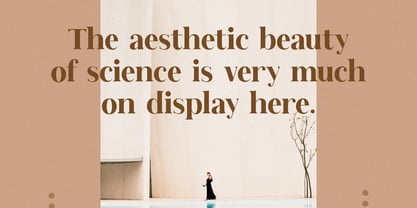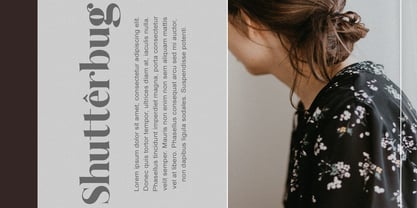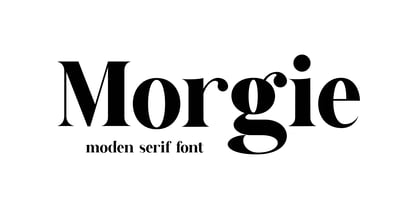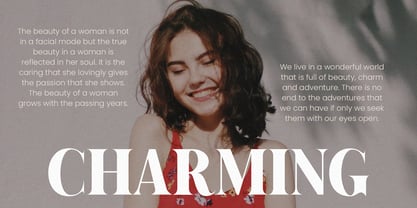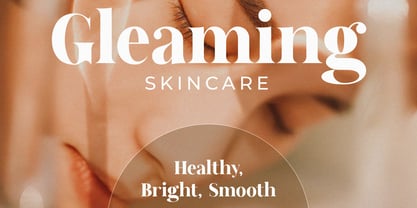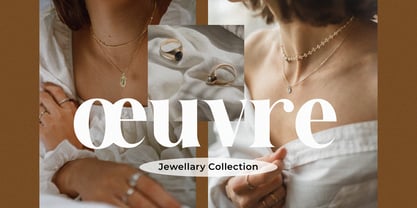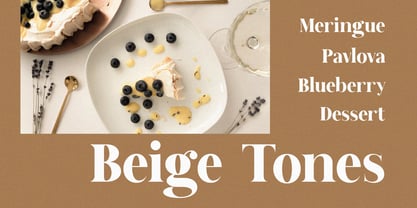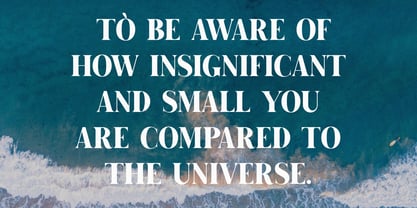
Morgie
Morgie – Modern Elegant Serif Font
Morgie is a strong and modern serif font with a touch of classic elegance. Featuring thick strokes and sharp, pointed ends, this typeface offers a powerful yet graceful look. Its semi-classic form makes it perfect for both modern and vintage-themed designs.
Morgie is available in regular and italic styles, giving you flexibility in both text and display use. It works well in everything from editorial layouts and bold headlines to luxury branding and high-impact logos. Each letter is designed to be clear, stylish, and professional—ensuring your work stands out every time.
Because of its elegant structure, Morgie adds depth and character to any layout. It’s ideal for designers working on magazines, books, websites, song covers, and billboards. You can also use it for fashion branding, boutique logos, or product packaging where a classic yet trendy style is needed.
Additionally, its clean shape and sharp ends make it suitable for both short titles and longer text content. Whether you’re designing for digital platforms or print media, Morgie offers great readability and impact.
Best For:
• 📚 Editorial design: magazines, articles, books
• 🎬 Creative media: movie titles, song covers
• 🛍️ Branding: logos, product labels, fashion packaging
• 💻 Web content, layouts, and digital ads
• 🎨 Canva templates, invitations, and social graphics
In short, Morgie is a reliable serif font that gives your work a bold, modern voice with classic charm. Perfect for professionals who want their design to feel premium and timeless.